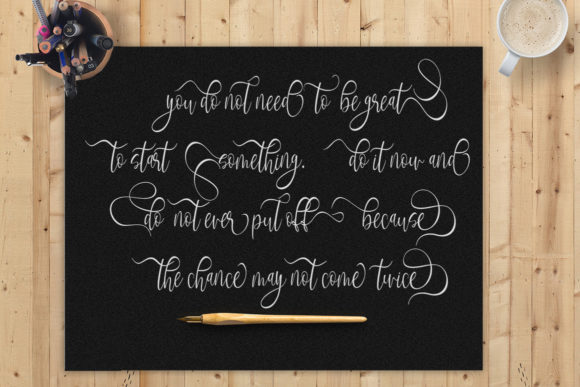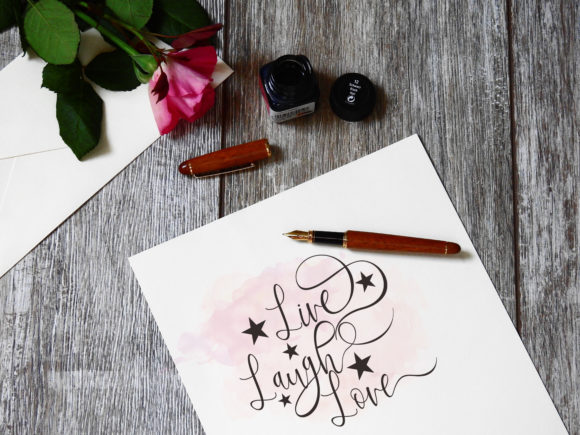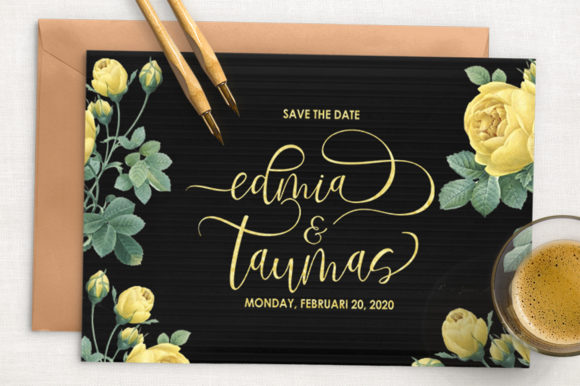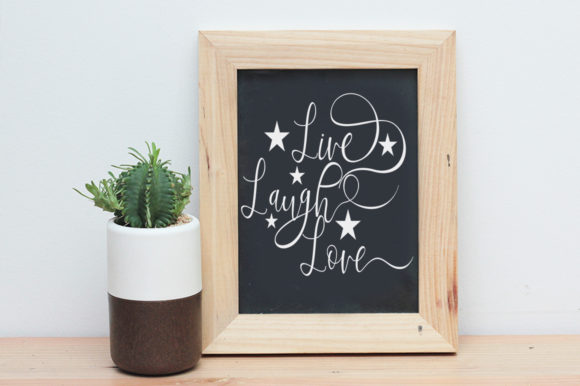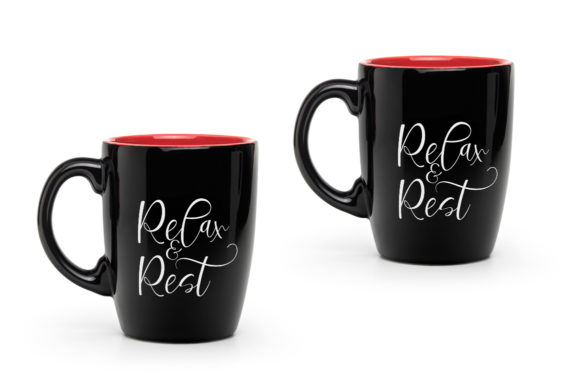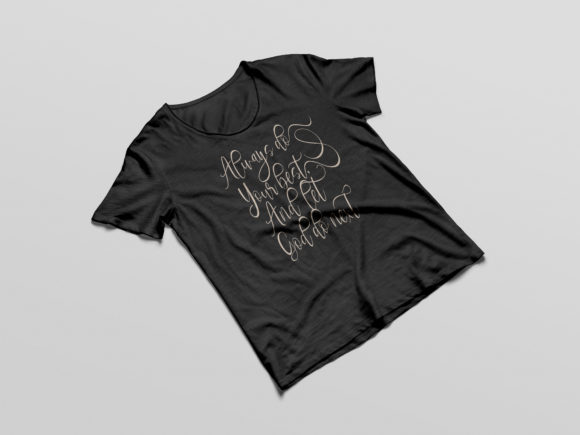
Introduction to Revalisha Font
Remember the thrill of staring at a blank canvas, waiting for inspiration to strike? For many creatives, that’s the moment when the perfect font can make all the difference. And if you’re anything like me, you’ve probably spent hours searching for the perfect typography to elevate your design project. That’s where Revalisha Font comes in – a game-changing, ultra-modern typeface that’s about to revolutionize your creative process.
With its high-quality, handmade look and snap-perfect characters, Revalisha Font is the ultimate design resource for anyone looking to add a touch of sophistication to their work. Whether you’re working on a free download or a paid project, this font is sure to impress. And the best part? Its transparent background makes it easy to customize and integrate into your design.
Key Features of Revalisha Font
- High-quality design for creative projects, making it an ideal design resource for professionals and hobbyists alike.
- Includes a range of characters and glyphs, including uppercase and lowercase letters, numbers, and special characters.
- Unique, modern design makes it an excellent choice for creative projects that require a touch of elegance and sophistication.
Honest Review: Revalisha Font
As a designer, I’m always on the lookout for high-quality design resources that can elevate my creative projects. The Revalisha Font caught my attention with its unique and elegant style. I decided to give it a try and see how it performs in various design scenarios.
- High-quality typography: The Revalisha Font boasts a clean and crisp design that’s perfect for any creative project.
- Customizable: I appreciated the flexibility of the font, which allows for easy customization to suit different design needs.
While the Revalisha Font is a great addition to any designer’s toolkit, I did encounter some limitations.
- Limited language support: The font only supports a limited number of languages, which may be a drawback for designers working on multilingual projects.
- No bold or italic variants: The font only comes in a single weight, which may not be suitable for designs that require bold or italic text.
Overall, I’m impressed with the Revalisha Font’s unique style and high-quality design. While it has some limitations, it’s still a valuable addition to any designer’s toolkit. I would recommend it for creative projects that require a clean and elegant typography.
The Revalisha Font is a versatile design resource ideal for high-quality creative projects. With a transparent background, it’s perfect for adding a touch of elegance to your designs.
Common Use Cases for Revalisha Font
The Revalisha Font is ideal for a variety of creative projects, including brochures, business cards, and presentations. You can also use the font to create social media graphics, website headers, and other digital design elements.